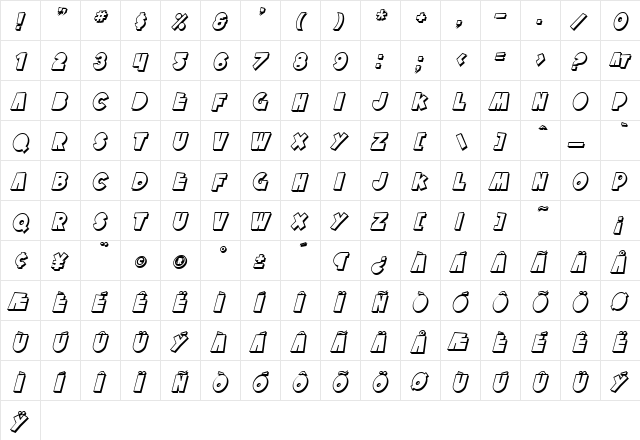
SF Tattle Tales Shadow Italic
Design Context for SF Tattle Tales Shadow Typeface
SF Tattle Tales Shadow brings ornamental detail and strong personality to headlines and identities, where visual impact matters more than quiet functionality. Its italic angle brings a sense of urgency and motion to the letterforms.
Font Pairing: Pair with a clean neutral sans-serif for body copy to let SF Tattle Tales Shadow's character lead without overwhelming the composition.
Pro Tip: Use SF Tattle Tales Shadow exclusively at display sizes — it was designed to be seen, not read at length. Let a neutral companion handle body copy.